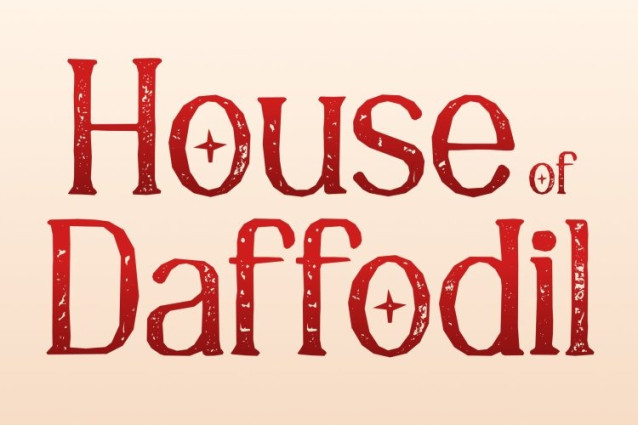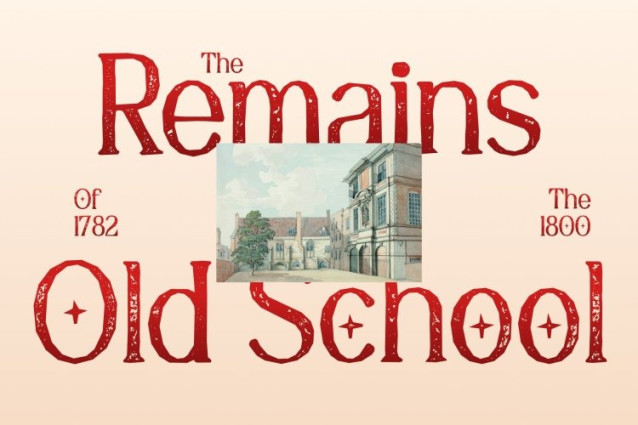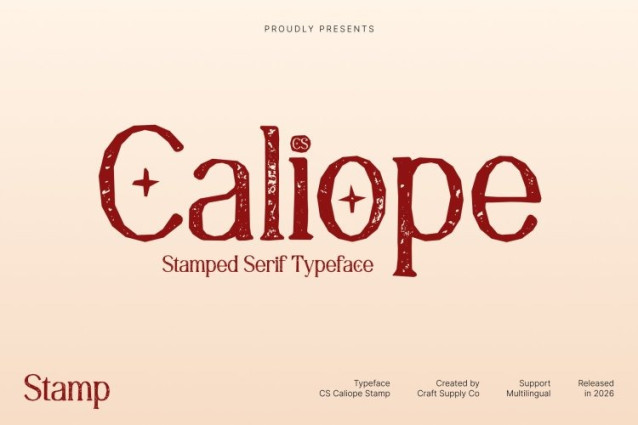
CS Caliope Stamp Font
CS Caliope Stamp Font – This transforms a sleek modern serif into a tactile, expressive display font. Its elongated letterforms retain refined vertical rhythm, while subtle inked textures, distressed edges, and hand-stamped imperfections introduce a classic, vintage feel. The result is a font that balances contemporary sophistication with artisanal charm.
Elongated Forms with Textured Grace
Each character features gentle irregularities in stroke and serif endings, reminiscent of hand-stamped typography or old printing techniques. The elongated proportions give the text an airy, elegant presence, while the slight roughness adds depth and visual interest. This combination creates a font that is both refined and artfully imperfect.
Versatile for Fashion, Editorial, and Luxury Branding
This font excels in projects where elegance and character are essential. Perfect for editorial layouts, luxury branding, packaging, and high-end invitations, the textured stamp effect brings a warm, handcrafted touch to otherwise modern serif letterforms. Headlines and titles gain sophistication with subtle vintage charm.
Timeless, Modern, and Expressive
By merging elongated modern forms with artistic stamp detailing, this font communicates style, refinement, and personality. It’s ideal for designers seeking a serif that is simultaneously contemporary, elegant, and enriched with classic, tactile aesthetics making each word feel poised, sophisticated, and visually memorable.